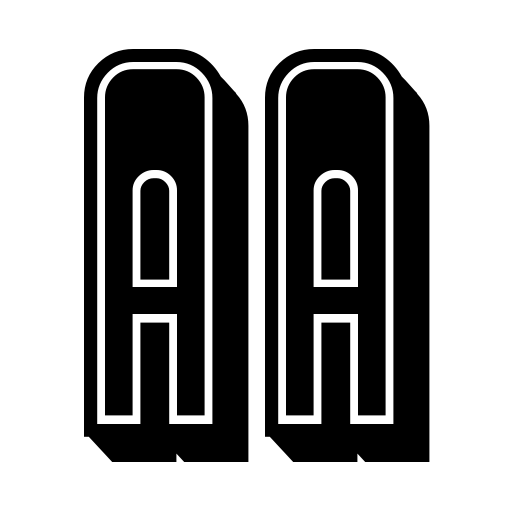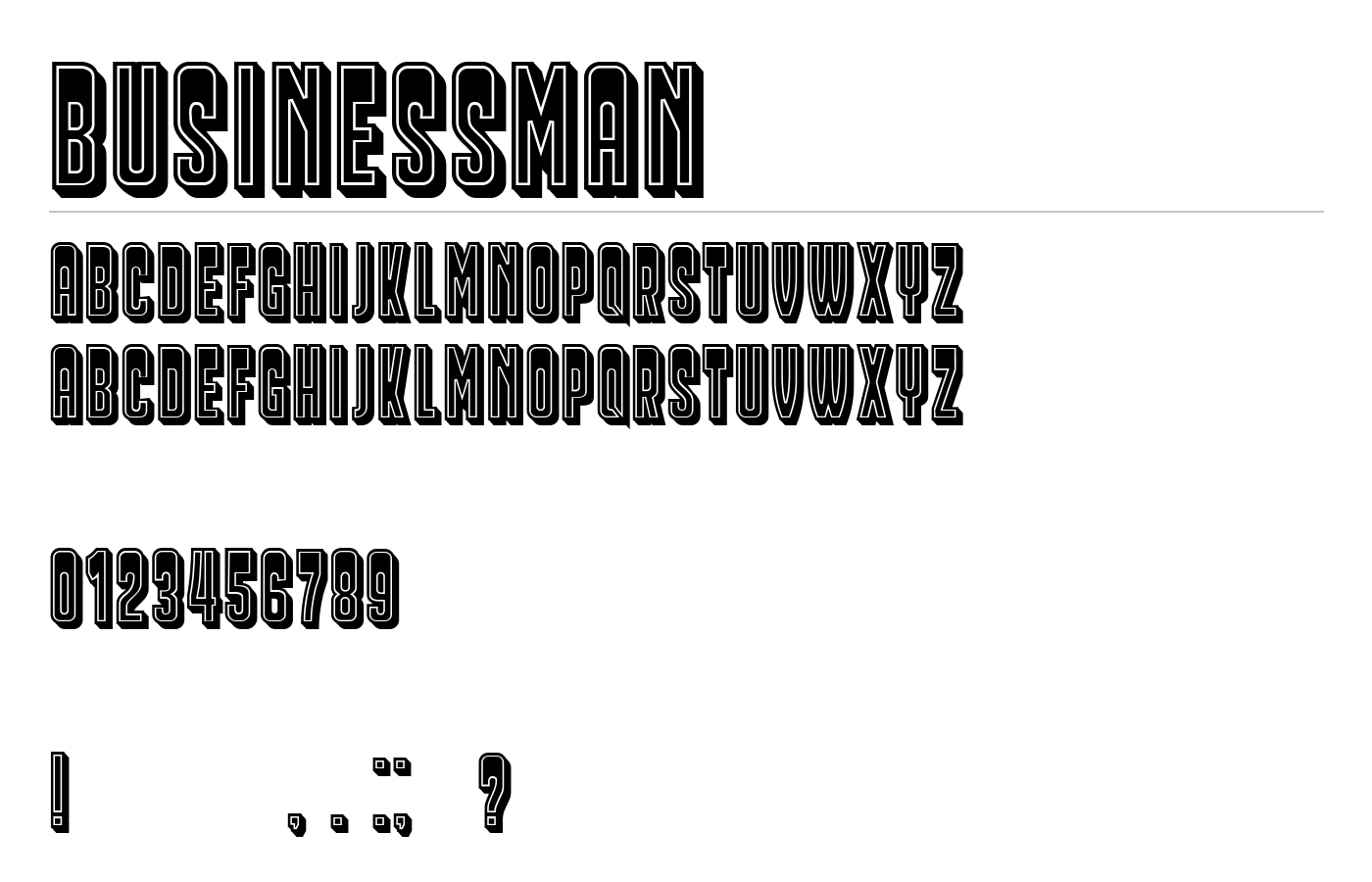
Businessman is a bold, condensed sans serif font with a strong geometric structure and striking outline shadow that adds depth and impact. Its tall uppercase letters offer a vintage yet energetic vibe, making it perfect for headlines, logos, and branding where a confident, attention-grabbing style is needed. This font works well for designs aiming to convey professionalism with a touch of classic boldness.
Businessman Font
About Businessman Font